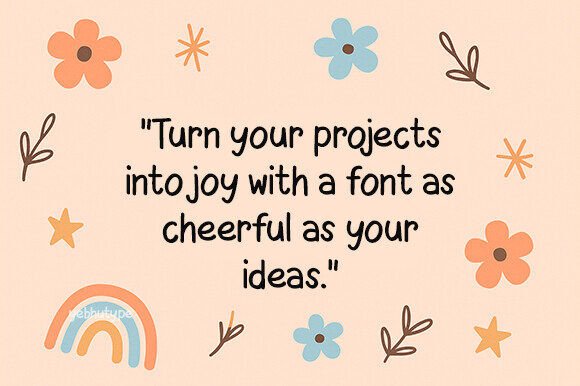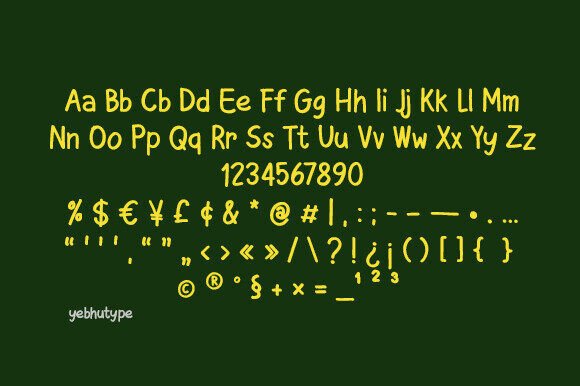
Unlocking Creativity with Cute Notebook Font
Have you ever been in the middle of a design project, and suddenly, you just can’t seem to find the right font? I recall a particularly frustrating moment when I was working on a whimsical craft project for a client who wanted a font that embodied childhood nostalgia and playfulness. After scouring through countless font libraries, I stumbled upon the Cute Notebook font, and it was like a breath of fresh air. In this article, we’ll dive into the world of Cute Notebook, exploring its features, uses, and what makes it so special.
The Cute Notebook Story
The Cute Notebook font is an embodiment of spontaneous creativity, extending a warm, handwritten hug across every creative endeavor. Inspired by the whimsy of daydreams, doodles, and boundless imagination, this delightful typeface mirrors the joy and charm of a well-worn notebook page. It’s not just any font; it’s an authentic expression of creativity, radiating warmth and familiarity.
A Personal Review of Cute Notebook
So, what makes Cute Notebook so lovable? Here are a few things that I adore about this font:
- ✨ Genuine Hand-drawn Style: Emulating the spontaneity of penmanship, Cute Notebook strikes a perfect balance between playfulness and elegance.
- ✅ OpenType Features: This font comes with a range of OpenType features, including stylistic alternates, glyphs, and ligatures, making it versatile for various design projects.
- 💕 Emotional Connection: Cute Notebook encapsulates nostalgia, acting as a charming conduit between childhood memories and the present moment.
While Cute Notebook is a delightful font, it’s not without its quirks. Here are a few things to consider:
- 🤔 Legibility at Small Sizes: While Cute Notebook is stunning at larger sizes, it may lose legibility when used at smaller sizes (below 10pt). Be mindful of font size when using it for body text.
- ⚠️ Limited Formality: Due to its playful nature, Cute Notebook might not be the best fit for formal or professional projects that require a more serious tone.
According to its creators, Cute Notebook was inspired by the innocent scribbles and impromptu sketches found in the gaps of a notebook page. This font aims to capture the essence of childhood creativity and imagination, making it perfect for projects that require a touch of nostalgia and playfulness.
| Font Name | Cute Notebook Font |
| Author | yebhutype |
| What makes Cute Notebook unique? | Cute Notebook’s genuine hand-drawn style and OpenType features make it a standout font for creative projects. |
| Is Cute Notebook suitable for body text? | While Cute Notebook is stunning for headings and titles, it may not be the best choice for body text due to legibility issues at smaller sizes. |
In conclusion, Cute Notebook is a charming font that embodies the essence of creativity and playfulness. With its genuine hand-drawn style, OpenType features, and nostalgic feel, it’s perfect for designers, crafters, and creative hobbyists looking to add a touch of whimsy to their projects.